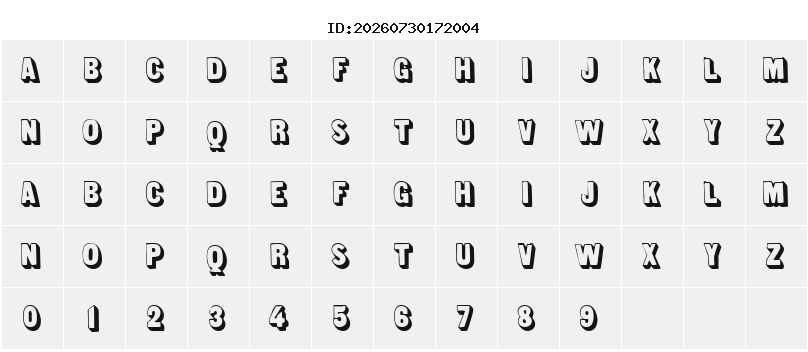
About Lunch.ttf
Lunch.ttf is a modern, elegant sans-serif font designed for ultimate readability and visual harmony. Perfect for branding, headlines, web design, and print materials.